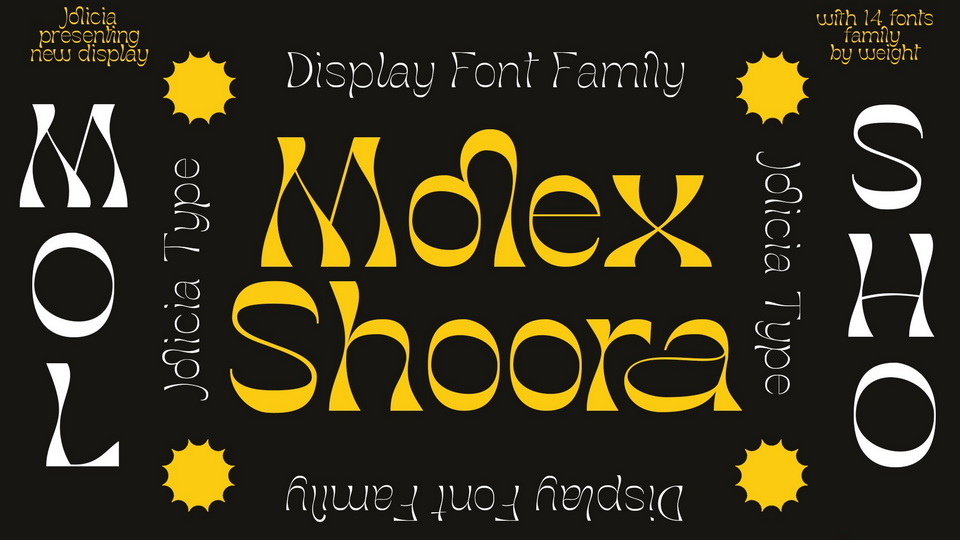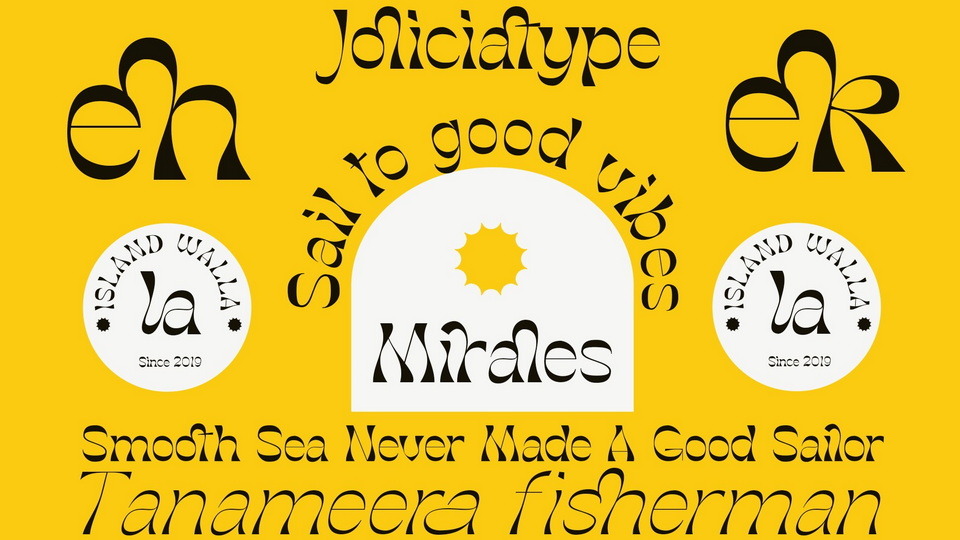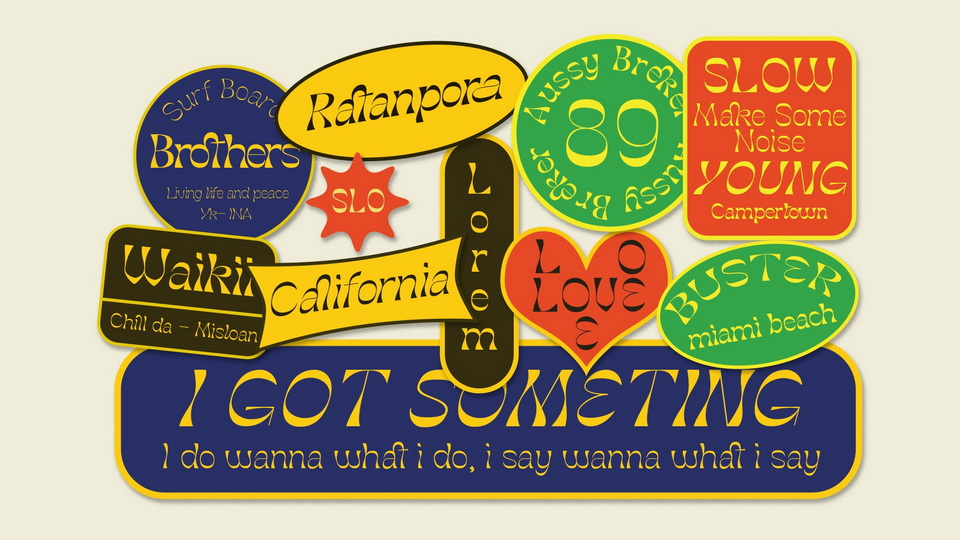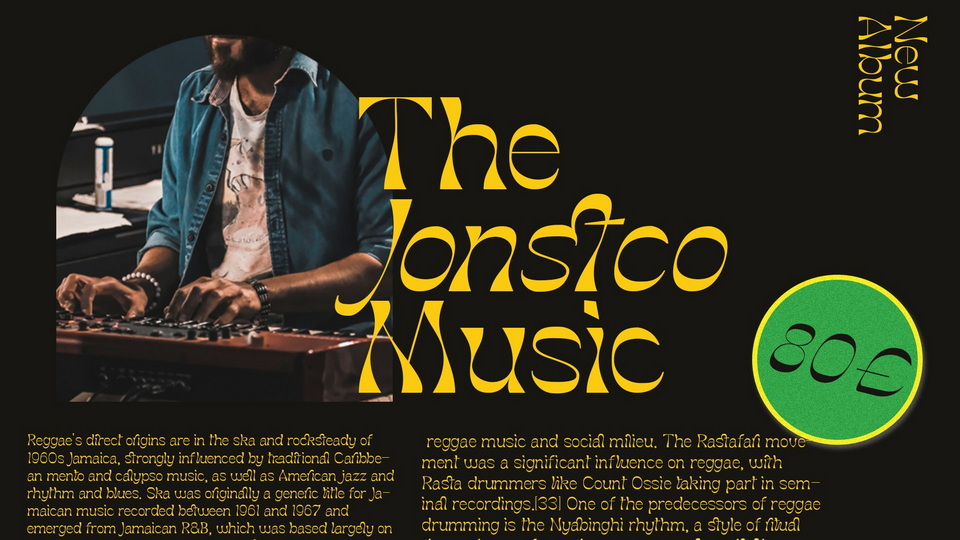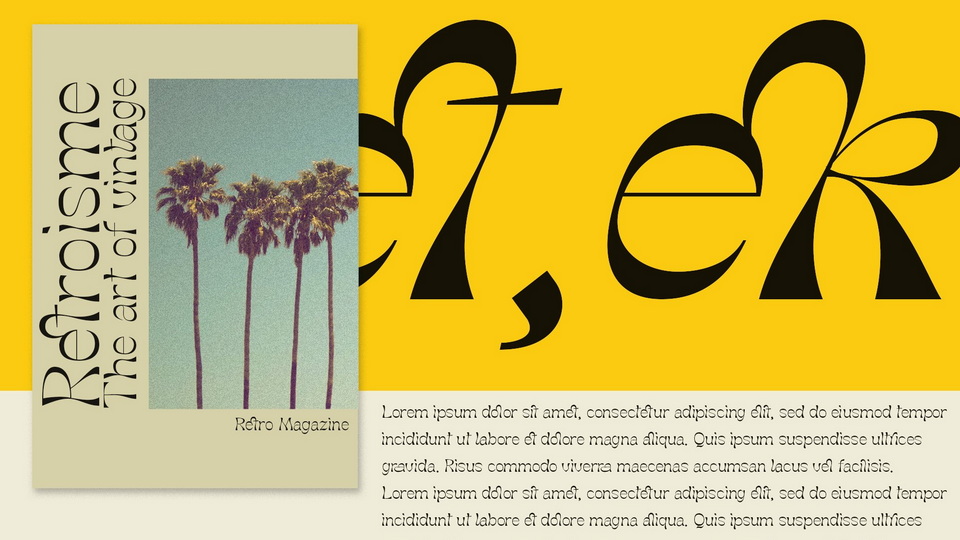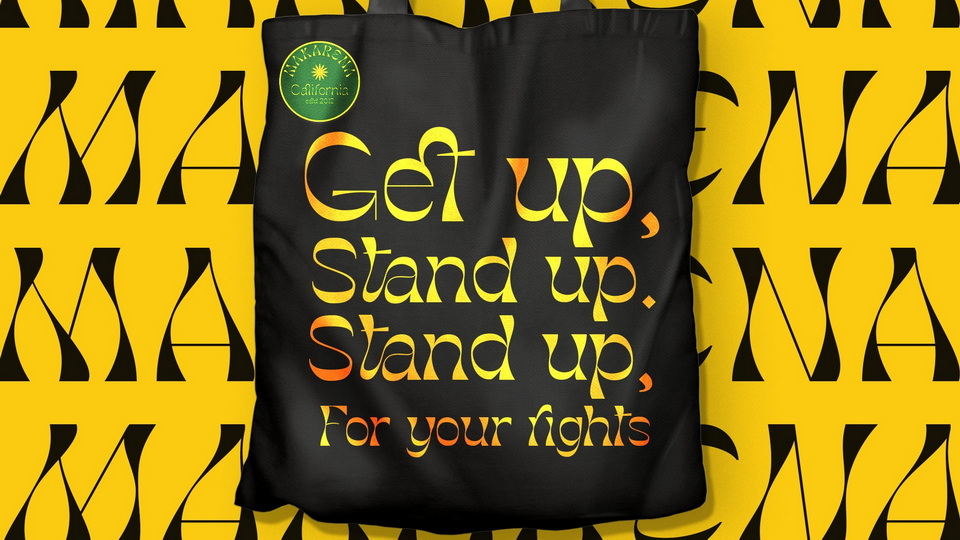
Molex Shoora Font
Molex Shoora is a reverse contrast typeface inspired by retro-style writing. Each element created with a unique style, made on the top and bottom edges thick and in the middle it starts to thin which is consistent with each letter.
Designed by: Jolicia Type